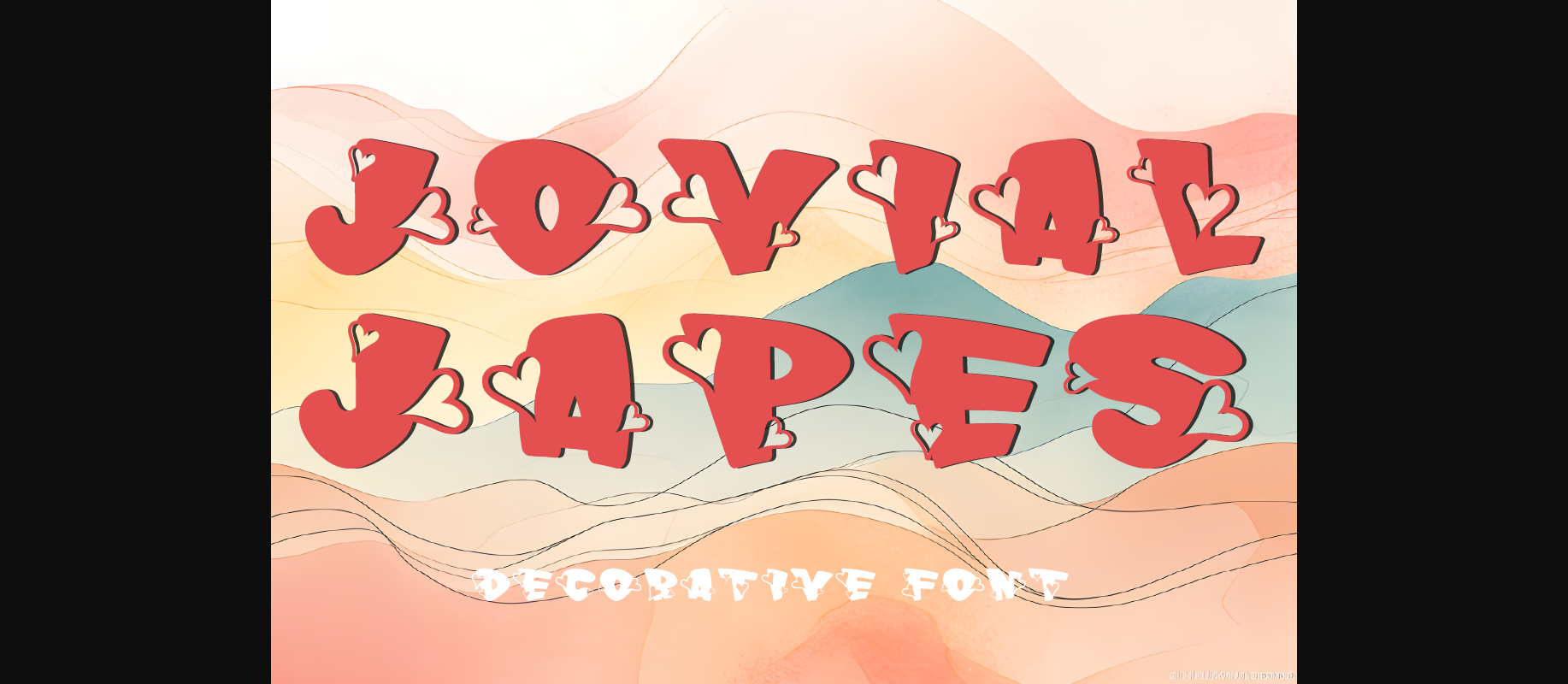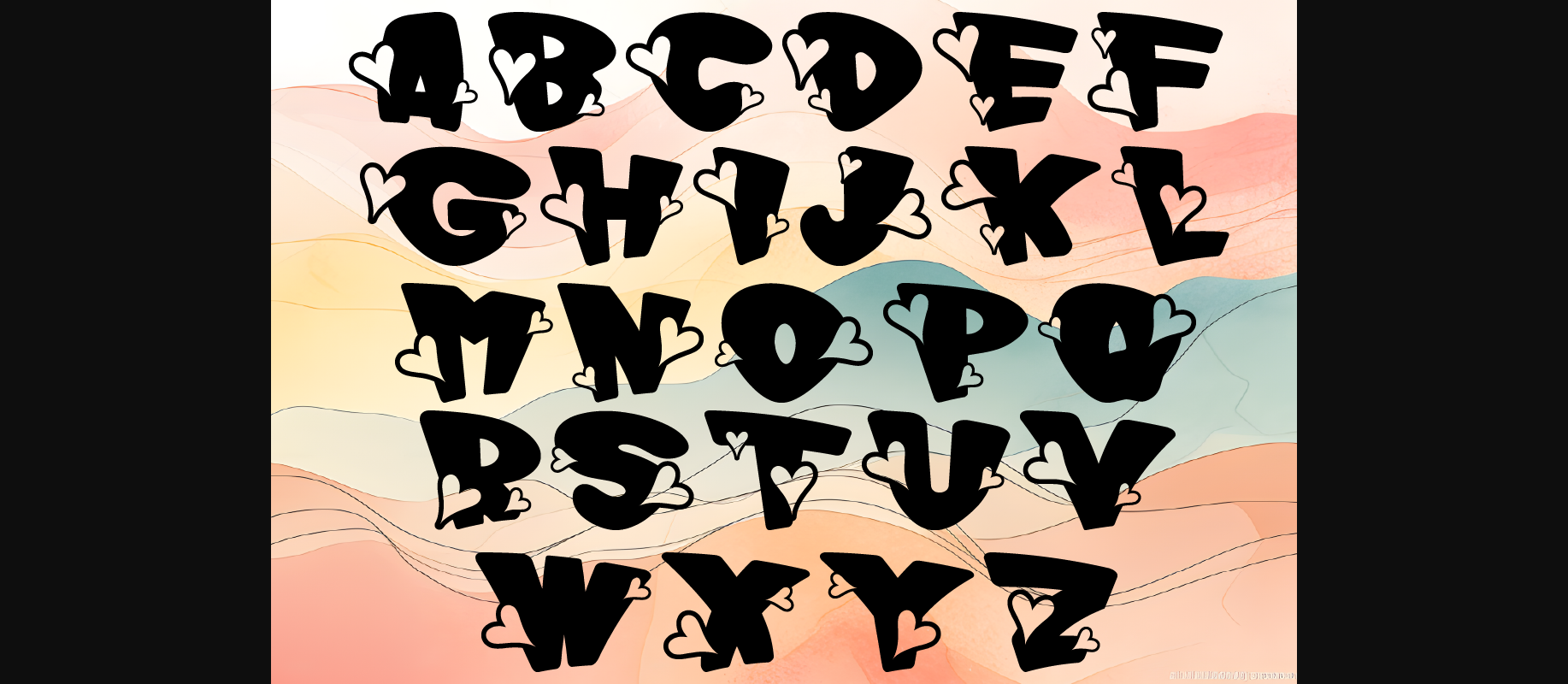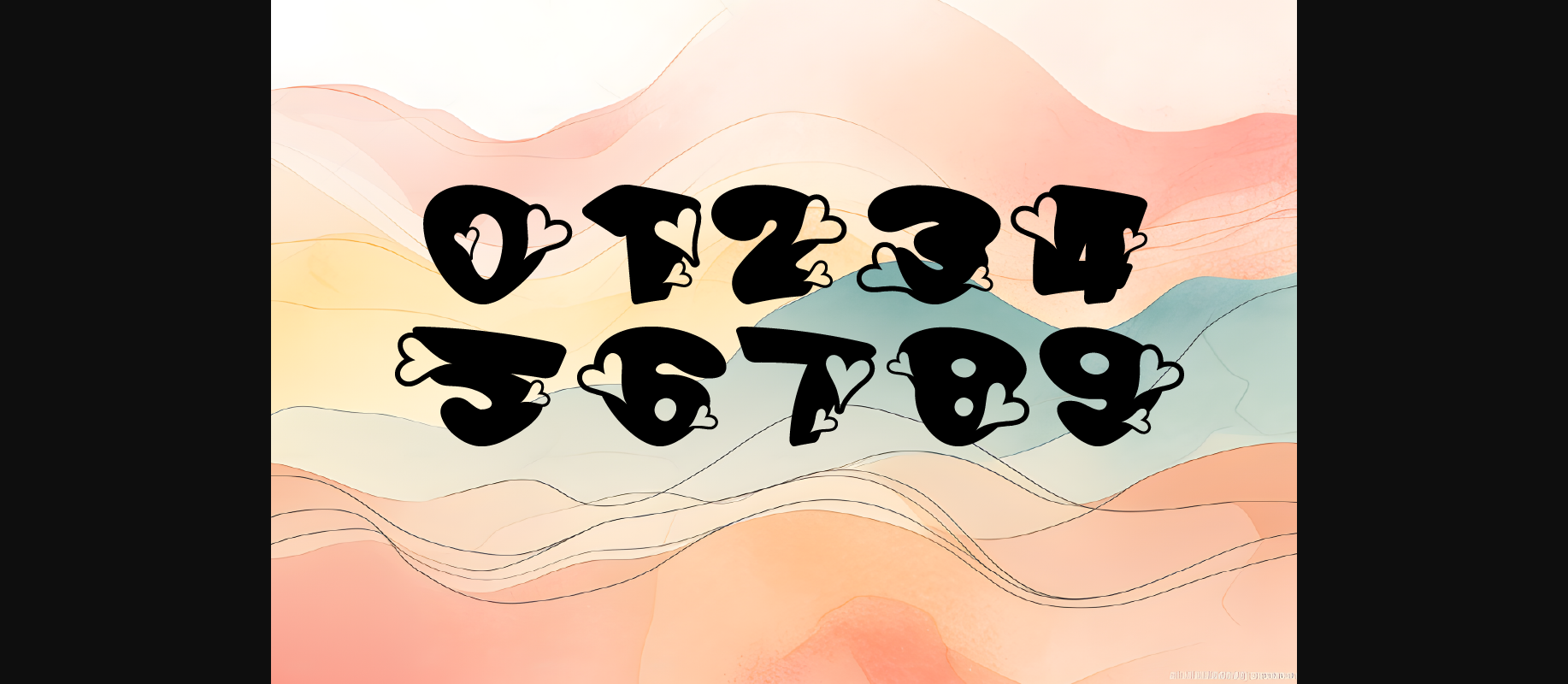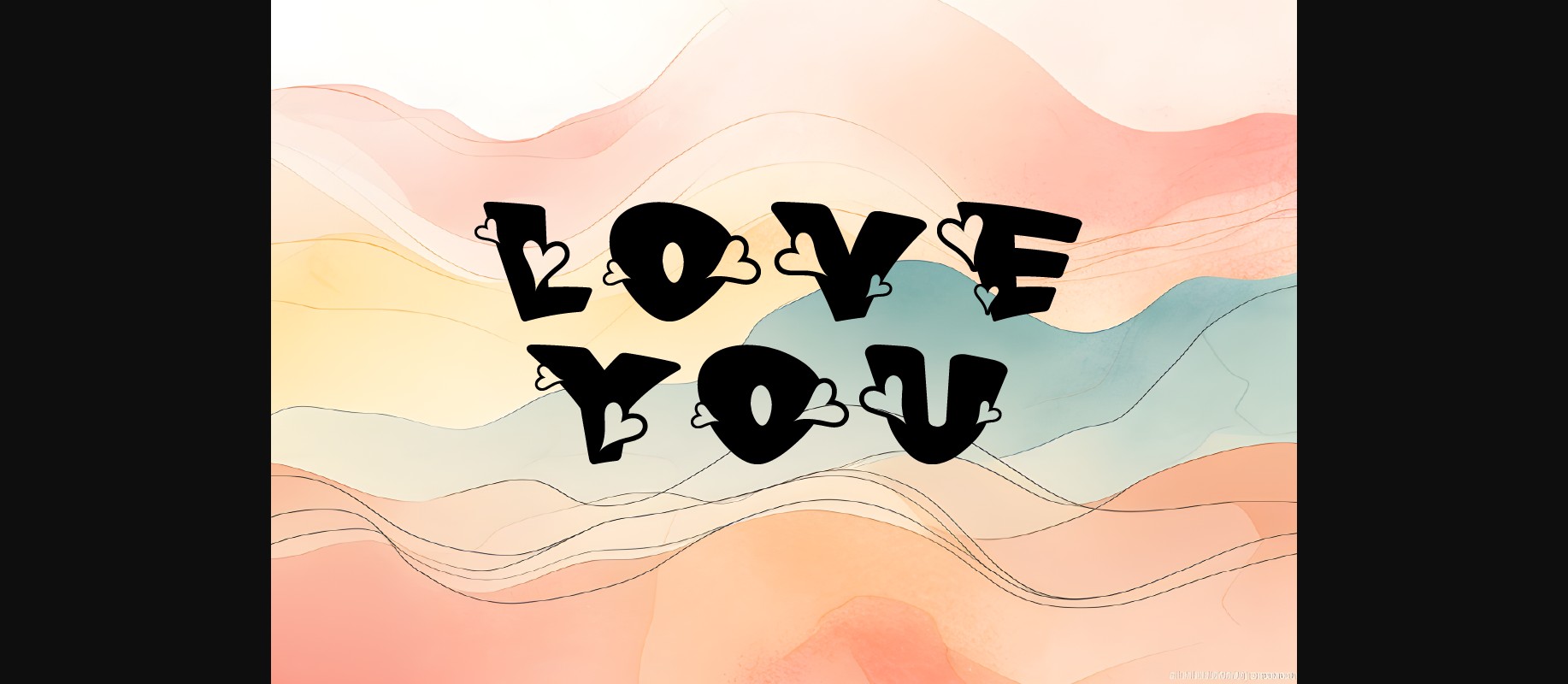
Jovial Japes Font
Introducing “Jovial Japes Decorative Fonts” – a delightful ensemble of letters adorned with the warmth of love, each stroke intricately crafted with a heart-shaped flourish. This digital product encompasses 26 capital letters and 10 numbers (0-9), all exuding a playful charm that transcends conventional typography.
These fonts are not just ordinary characters; they are a fusion of creativity and expression, designed to infuse your projects with a touch of whimsy and affection. Whether you’re designing greeting cards, crafting invitations, or adding a personal touch to digital artwork, Jovial Japes is your go-to companion.
What makes Jovial Japes truly versatile is its compatibility across various applications. From graphic design to digital marketing, from web development to creative writing, these fonts seamlessly integrate into every field of artistry, allowing your imagination to soar without limitations.
Upon acquisition, you’ll receive both OTF and TTF files, ensuring effortless compatibility with a wide range of software and platforms. Short messages captured with Jovial Japes instantly captivate attention, drawing viewers into a world where every word is adorned with affection and creativity.
Embrace the whimsical allure of Jovial Japes Decorative Fonts and elevate your designs to new heights, where every letter becomes a testament to the joy of expression.